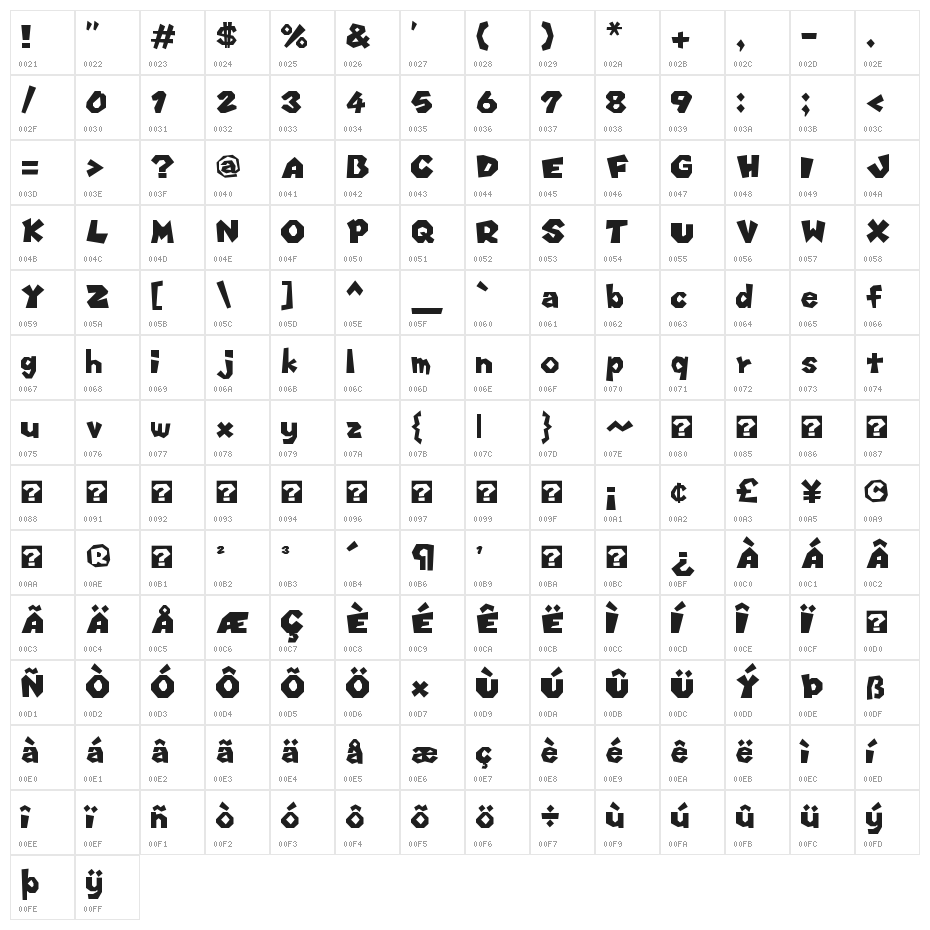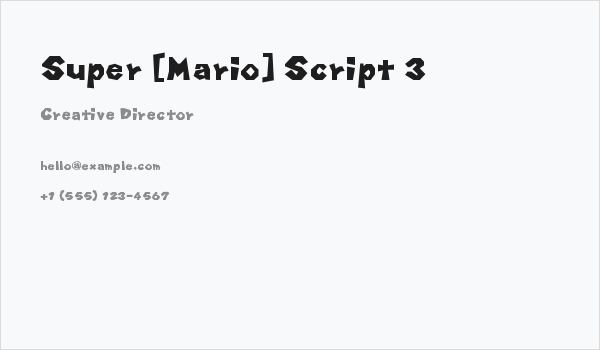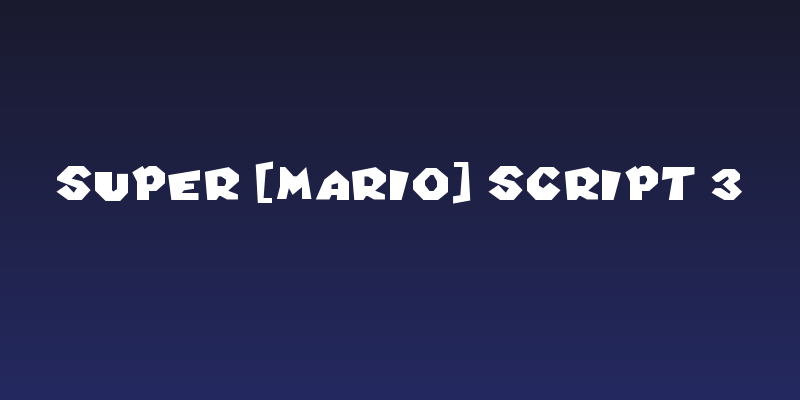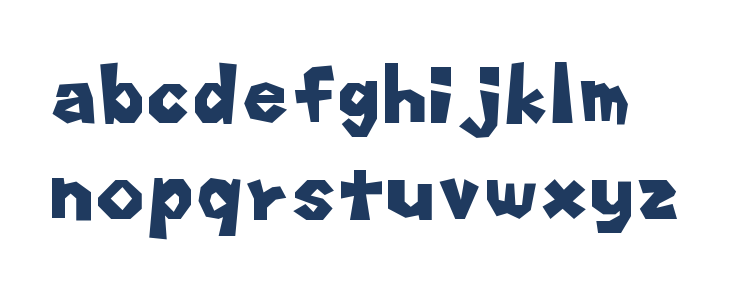
Super [Mario] Script 3 Font
This is the font used in Gamecube Mario Games.
| Gesamtstil | Retro, Playful |
| Vorgeschlagene Projekte | Ideal for video game designs, retro-themed posters, playful branding, and eye-catching headlines. |